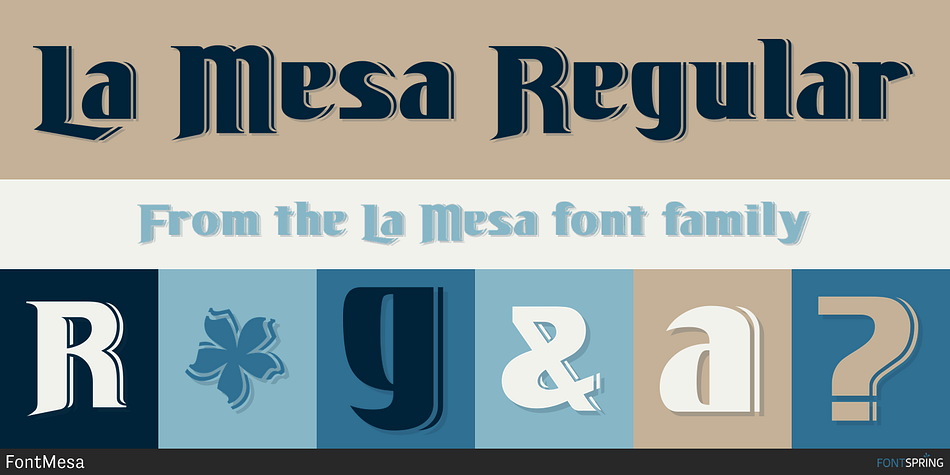
La Mesa Regular
La Mesa is a display font family. This typeface has two styles and was published by FontMesa.
La Mesa is a bold font suitable for logos, letterheads & headlines.
It also resembles the lettering used by the Miller Brewing Co.